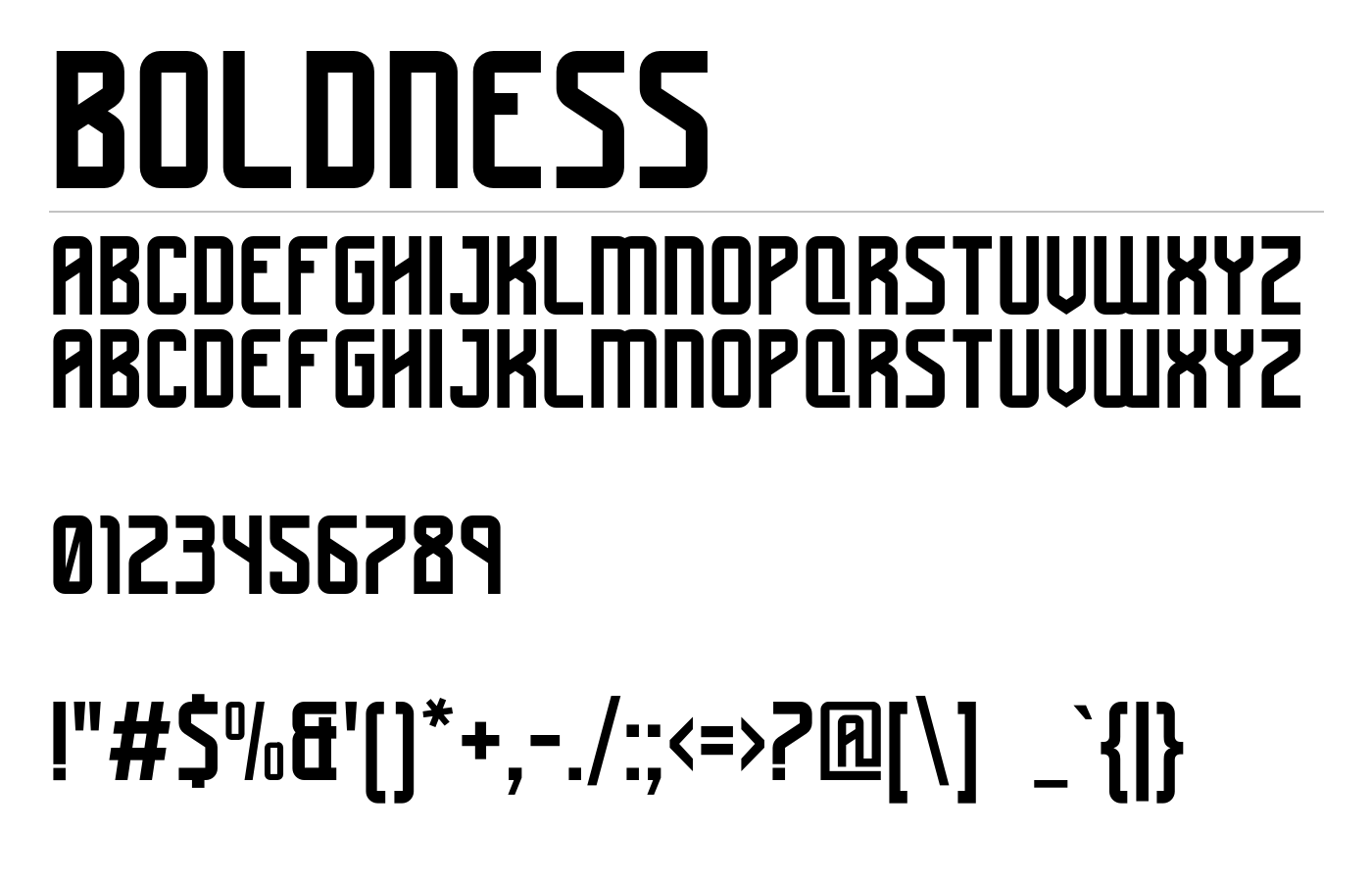
Boldness Font is a striking, condensed sans serif typeface with a strong geometric influence and a high x-height that ensures excellent readability. Its sharp, angular lines and uniform stroke weight create a modern and assertive character, perfect for attention-grabbing headlines, logos, and branding that demands confidence and impact. This font’s futuristic personality makes it ideal for technology, sports, and lifestyle designs seeking a bold and contemporary look.
Boldness Font
About Boldness Font
| Font family | Boldness Font |
| Designer | Diego Inacio |